Looking for the perfect typeface for branding in 2025? Typography plays a major role in shaping how audiences perceive a brand. Whether you’re building a nostalgic, modern, bold, or premium identity, choosing the right typeface is essential for leaving a strong and memorable impression.
In 2025, branding trends continue to focus on expressive design, handcrafted aesthetics, and personality-driven fonts. This guide will help you understand how to select the ideal typeface—and which styles work best for modern branding.
Why Choosing the Perfect Typeface for Branding 2025 Matters
A brand’s typeface communicates tone, intention, and emotion long before words do. Major companies like Apple, Netflix, and Supreme rely heavily on typography to maintain recognition and build trust.
The perfect typeface for branding 2025 should:
Create a consistent visual identity
Reinforce the brand’s personality
Improve readability across platforms
Support digital, print, and large-format design
Help customers instantly remember the brand
Typography is one of the most powerful storytelling tools in branding.
Key Elements of the Perfect Typeface for Branding (2025 Version)
Choosing a typeface requires understanding how a font behaves across various situations. In 2025, brands need fonts that balance style, flexibility, and usability.
How the Perfect Typeface Impacts Brand Personality
A font can make a brand feel vintage, futuristic, bold, luxurious, playful, or dark. Each style carries emotion.
Examples using your fonts:
Midway → nostalgic, classic, heritage
NexusBold → strong, modern, corporate
Geon → minimal, clean, geometric
Vermithor → powerful, aggressive, high-impact
Chrome Slab → elegant, refined, premium serif
Choosing incorrectly can misrepresent the brand’s tone, reducing trust and recognition.
Why Modern Brands Need a 2025-Ready Typeface
A modern brand must look consistent across:
Websites
Mobile apps
Social media
YouTube and video graphics
Merch and apparel
Packaging
Billboards or large displays
A 2025-ready typeface adapts to all of these without losing clarity or personality. Fonts like Midway, Geon, Chrome Slab, and NexusBold offer excellent cross-platform stability.
Top Fonts That Help You Achieve the Perfect Typeface for Branding 2025
Below are strong examples of typefaces suitable for modern branding, accompanied by the roles they excel in.
Midway — Vintage Look for 2025 Branding
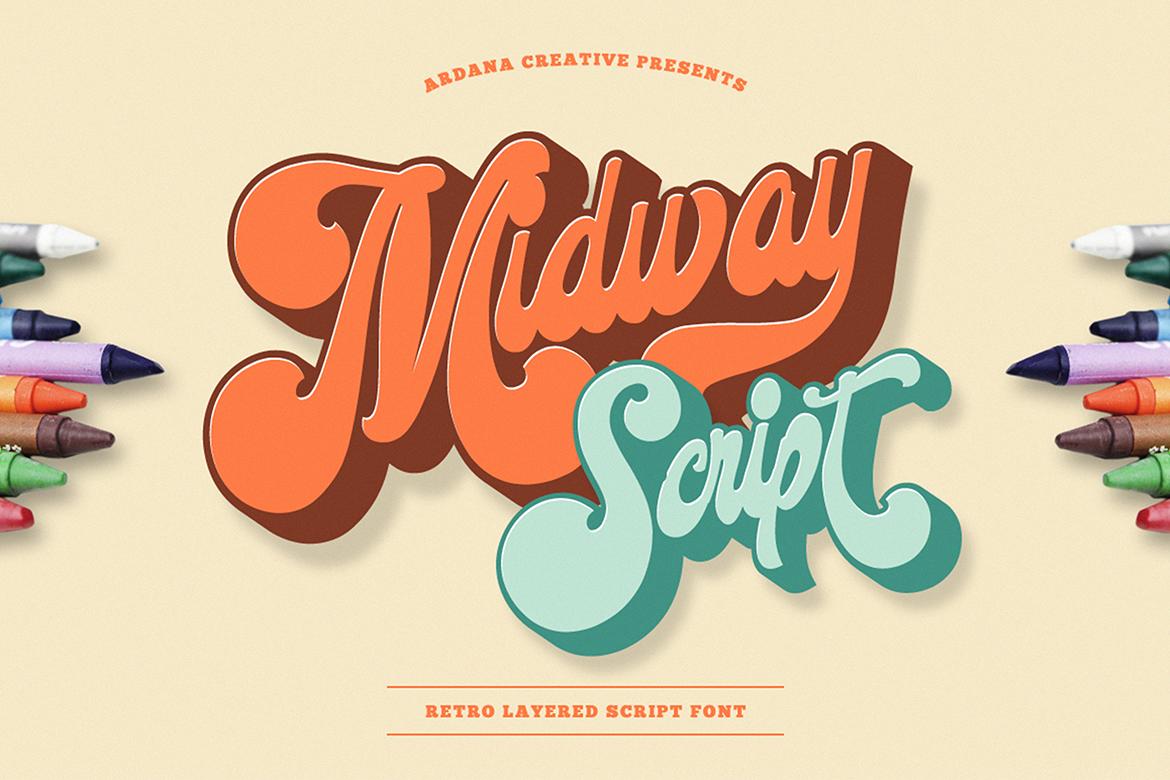
Midway leads the nostalgic branding trend in 2025. With its handcrafted retro aesthetic and proven corporate sales—including a licensing sale worth over $3,000—it is ideal for:
Coffee brands
Heritage apparel
Boutique packaging
Retro corporate identities
Logo design
NexusBold — Strong Branding Typeface for Modern Businesses
NexusBold delivers boldness, clarity, and authority. Its impactful presence makes it ideal for:
Sports brands
Tech companies
Retail packaging
Startup identities
Its clean bold structure helps brands appear confident and trustworthy.
Geon — Cyber Typeface for Techno 2025 Branding
Geon is a geometric, minimalist font perfect for brands that want a sleek and modern presence. It’s especially strong for:
Technology labels
UI/UX design
Mobile apps
Corporate branding
Its clean shapes allow it to scale smoothly across digital platforms.
Vermithor — Powerful Typeface Choice for Bold Branding
Vermithor brings heavy impact and a commanding tone, making it suitable for:
Gaming brands
Action-oriented merchandise
High-impact poster design
Bold logo titles
This typeface gives brands a striking and fearless personality.
Chrome Slab — Elegant Serif for Premium Branding in 2025
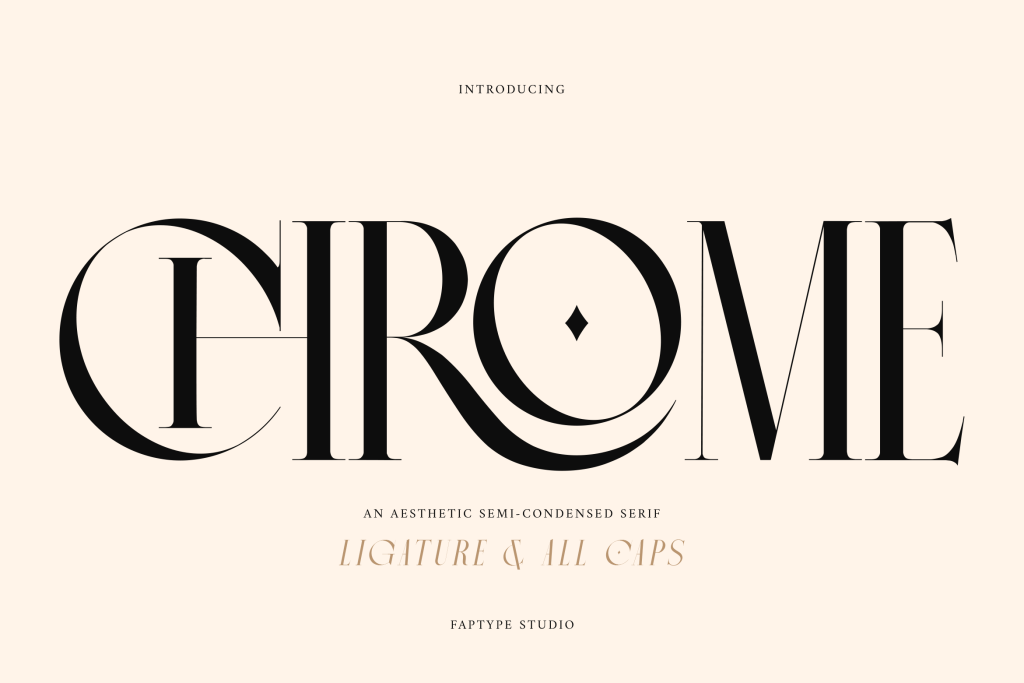
Chrome Slab is a semi-condensed serif featuring up to 45 ligatures, multilingual support, and refined uppercase forms. It’s ideal for:
Luxury branding
Editorial design
Premium product packaging
High-end logos
Its ligatures create a stylish identity that feels modern yet classic.
How to Apply the Perfect Typeface for Branding 2025 Across Media
After choosing the right typeface, apply it consistently through:
Logo and wordmark design
Headings and titles
Product packaging
Social media content
Advertisements
Website UI elements
Merchandise
Consistency builds recognition, while strategic hierarchy (display + supporting typeface) enhances readability.
Final Thoughts: Selecting the Perfect Typeface for Branding 2025
Choosing the perfect typeface for branding 2025 means understanding your brand’s personality, aligning with current design trends, and selecting fonts that offer versatility. Midway, NexusBold, Geon, Vermithor, and Chrome Slab each provide unique strengths that can help elevate any design project this year.
With the right font, your branding becomes stronger, more memorable, and more emotionally impactful.